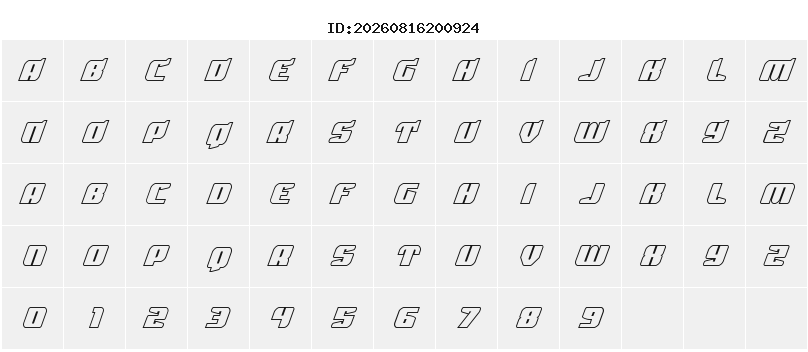
Spartaco Bold Outline Preview
• Font Name: Spartaco Bold Outline
• Full Font Name: Spartaco Bold Outline
About Spartaco Bold Outline.ttf
Spartaco Bold Outline.ttf is a modern, elegant sans-serif font designed for ultimate readability and visual harmony. Perfect for branding, headlines, web design, and print materials.